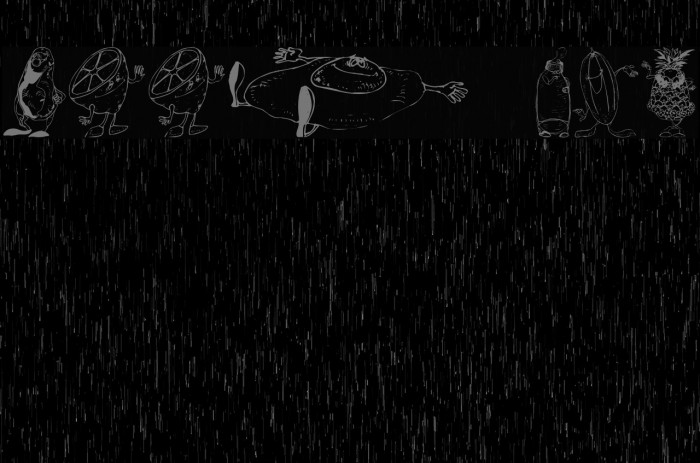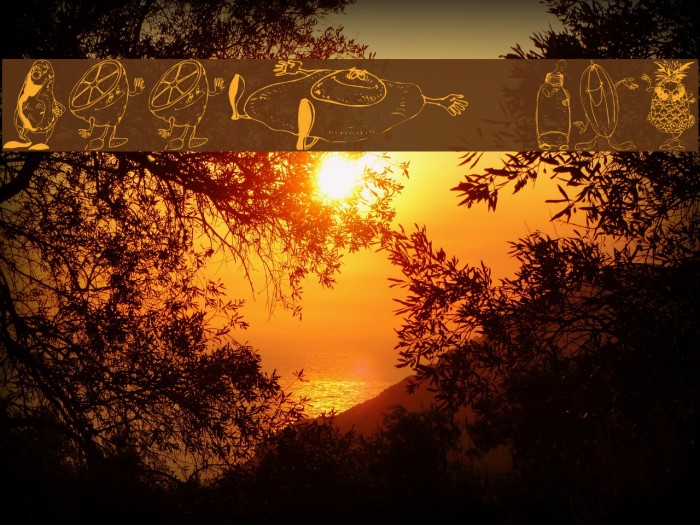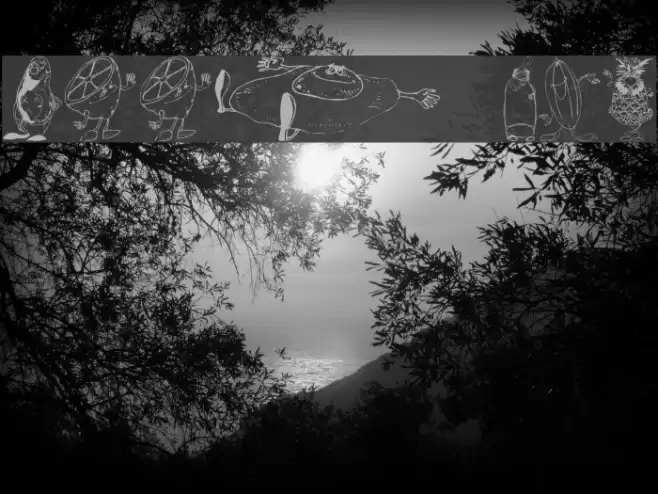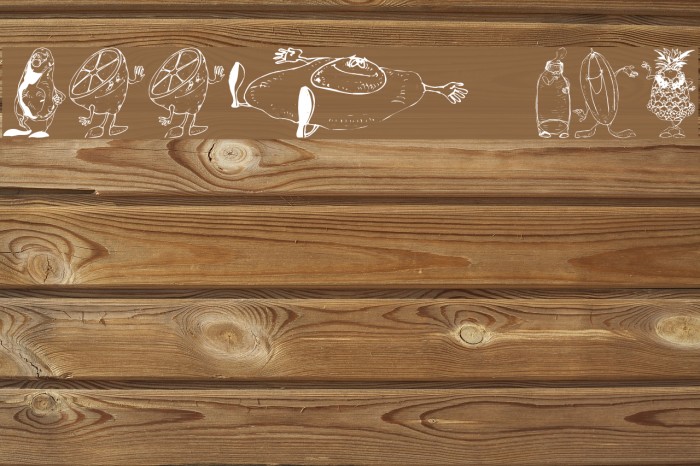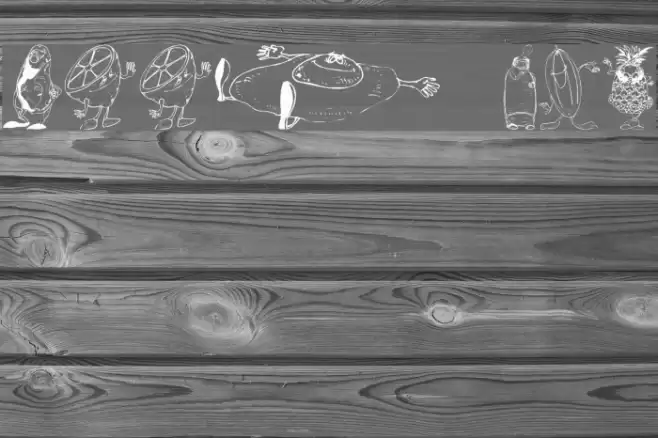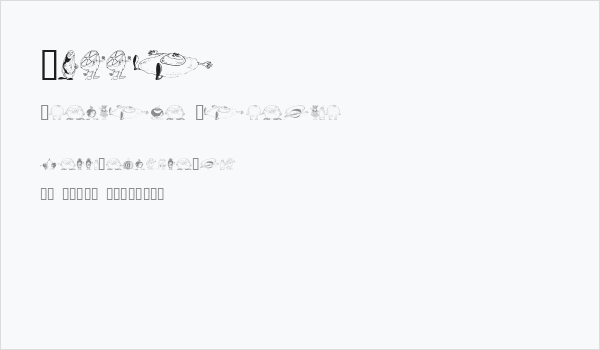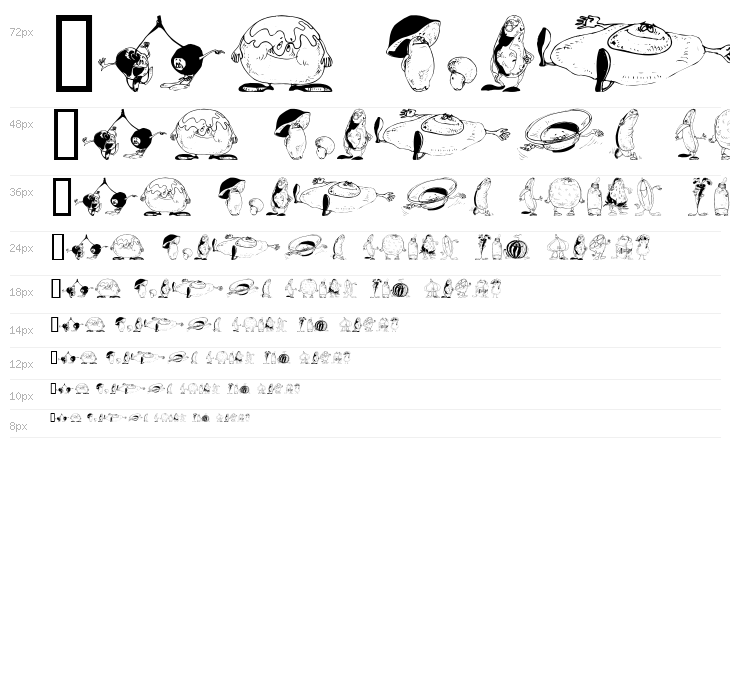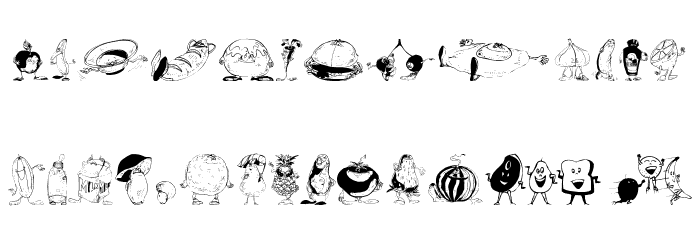
Yummi Font
Yummi Description
This is a playful and whimsical font where each character is represented by a unique, cartoonish food item. The characters are creatively illustrated with a variety of foods, each with its own personality and style. The font is highly decorative and visually engaging, making it ideal for projects that require a fun and lighthearted touch. The characters are detailed and imaginative, offering a delightful twist on traditional typography.
| Overall Style | Playful and Creative |
| Use Case | Logos, Posters, Children's Books |
| Proposed Projects | Ideal for children's books, playful branding, food-related advertising, and creative posters. |